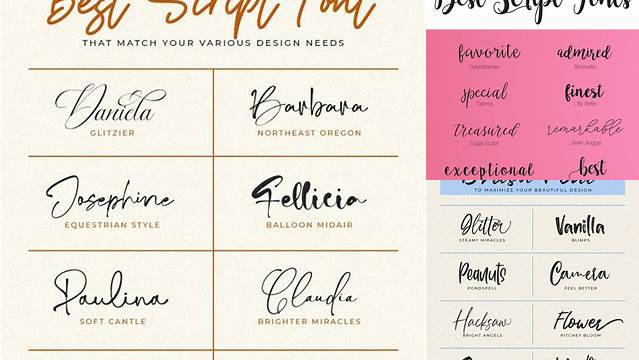
Best Script Font Generator Free: Unleash Your Typography Creativity
Looking for the best script font generator free? You've come to the right place! Script fonts, with their elegant and flowing strokes, add a touch of sophistication and personality to any design. But finding the perfect script font, or even generating your own, can sometimes feel like searching for a needle in a haystack. That's where a script font generator comes in handy. This comprehensive guide will explore the world of free script font generators, helping you discover the tools and techniques to create stunning typography for your projects. We'll dive into the best options available, providing insights into their features, ease of use, and the types of designs they're best suited for. So, whether you're a seasoned designer or just starting out, get ready to unleash your creativity and transform your text into captivating works of art. Let's get started and explore the exciting world of script font generation!
H2: Unveiling the Power of Free Script Font Generators
Alright, guys, let's talk about the unsung heroes of the design world: free script font generators! These awesome tools are like secret weapons for anyone looking to add a touch of elegance and flair to their projects. Think of them as digital calligraphy pens, allowing you to craft beautiful, handwritten-style text without the need for actual ink and paper. Whether you're working on a logo, a social media post, a wedding invitation, or even just a personal project, a script font can make all the difference. But why are these generators so powerful? Well, for starters, they offer a level of customization that's hard to find with pre-made fonts. You can often adjust the thickness of the strokes, the spacing between letters, and even the overall style to perfectly match your vision.
Moreover, they open up a world of possibilities for those who aren't necessarily skilled in calligraphy or hand lettering. You don't need to be a professional artist to create stunning typography! Many generators are incredibly user-friendly, with intuitive interfaces that make the process a breeze. Simply type in your text, experiment with different settings, and watch your words come to life. And the best part? Many of these tools are completely free to use, making them accessible to everyone. Imagine being able to create a unique and personalized script font without spending a dime! That's the power of free script font generators. They democratize design, empowering anyone to express their creativity through beautiful typography. But with so many options available, how do you choose the right one? Don't worry, we'll explore some of the best free script font generators out there, highlighting their key features and helping you find the perfect fit for your needs. Get ready to transform your text into captivating works of art!
H2: Top Free Script Font Generators: Our Curated List
Okay, folks, let's get down to the nitty-gritty and explore some of the top free script font generators that are rocking the design scene right now. We've scoured the web and hand-picked some of the best options, taking into consideration factors like ease of use, customization options, and overall quality. So, buckle up, because you're about to discover some amazing tools that will take your typography game to the next level! First up, we have FontStruct. FontStruct is a fantastic online tool that allows you to build your own fonts, including script fonts, from scratch. It's like having your own personal font foundry! While it's not strictly a generator, it gives you incredible control over every aspect of your font design. You can create unique letterforms, experiment with different styles, and really let your creativity run wild.
Next, we have Calligraphr. This is a game-changer for anyone who wants to turn their handwriting into a font. You simply print out a template, write your letters, scan the template, and upload it to Calligraphr. The generator then creates a custom font based on your handwriting! It's an amazing way to add a personal touch to your designs. For those who prefer a more automated approach, there are several online script font generators that offer a wide range of pre-designed script fonts. These generators allow you to preview your text in different fonts, adjust the size and spacing, and download the font files for use in your projects. Some popular options include Font Meme and Font Squirrel, which offer a vast library of free fonts, including many beautiful script fonts. When choosing a generator, consider factors like the variety of fonts available, the customization options, and the overall user experience.
H2: Exploring Features: What to Look for in a Generator
Alright, design enthusiasts, let's dive deeper and explore the key features you should look for in a top-notch free script font generator. Knowing what to look for will help you choose the perfect tool for your needs and ensure you get the most out of your design experience. First and foremost, consider the variety of script font styles offered. Some generators specialize in elegant and formal scripts, while others offer a wider range of styles, including casual, playful, and even edgy options. Look for a generator that aligns with your specific design needs.
Secondly, check for customization options. The ability to fine-tune your script font is crucial for achieving the desired look and feel. Look for generators that allow you to adjust the letter spacing, kerning, and even the thickness of the strokes. Some generators also offer the option to add ligatures, which are special characters that connect two or more letters, adding a touch of authenticity to your script font. Thirdly, consider the ease of use. A user-friendly interface is essential, especially if you're new to font generation. Look for generators with intuitive controls and a clear preview of your text. The ability to easily experiment with different fonts and settings will save you time and frustration. Fourthly, check the download options. Make sure the generator allows you to download your generated font in a compatible format, such as TTF or OTF, which can be used in most design software. Finally, consider any additional features. Some generators offer advanced features, such as the ability to create custom characters or add special effects. While these features may not be essential, they can be useful for adding a unique touch to your script font. By carefully considering these features, you'll be well-equipped to choose the best free script font generator for your creative endeavors.
H3: Customization Options: Fine-Tuning Your Script Fonts
Let's talk about the magic of customization! The best free script font generators offer a range of options to fine-tune your designs and make them truly your own. These features can transform a good script font into a great one, perfectly tailored to your vision. One of the most important customization options is letter spacing. This determines the space between individual letters in your text. Adjusting the letter spacing can dramatically affect the readability and overall aesthetic of your script font. For example, you might choose to tighten the spacing for a more elegant look or loosen it for a more casual feel. Kerning is another critical aspect of customization.
Kerning refers to the adjustment of space between specific pairs of letters. Some letter combinations naturally look better with more or less space between them. A good generator will allow you to fine-tune the kerning for each letter pair, ensuring your script font looks polished and professional. In addition to spacing and kerning, many generators allow you to adjust the thickness and style of the strokes. This can range from simple adjustments to the width of the strokes to more complex options like adding swashes or flourishes. These subtle details can significantly impact the personality and style of your script font. Furthermore, some generators offer the ability to add ligatures. Ligatures are special characters that combine two or more letters into a single glyph. They can create a more authentic and natural look, especially in script fonts where letters often connect. By carefully utilizing these customization options, you can transform a generic script font into a unique and personalized design that perfectly matches your creative vision.
H3: User-Friendly Interfaces: Navigating with Ease
Let's face it, guys, a clunky and confusing interface can kill your creative buzz. That's why a user-friendly interface is a must-have for any free script font generator. Look for generators that prioritize simplicity, clarity, and ease of navigation. An intuitive interface should have a clear layout, with all the essential controls and options readily accessible. The text input field should be prominent, allowing you to easily type in your text and see it displayed in the chosen script font. The customization options should be well-organized and easy to understand, with clear labels and visual previews.
Visual previews are particularly important. The ability to see your text in real-time as you adjust the settings is invaluable. It allows you to experiment with different options and instantly see the results. This makes the design process much faster and more enjoyable. Furthermore, look for generators that offer helpful tooltips and tutorials. These can guide you through the different features and options, especially if you're new to font generation. The generator should also be responsive and fast-loading. No one wants to wait for ages while the page loads or the changes are applied. A smooth and efficient interface will keep you in the creative flow. Finally, consider the overall design of the interface. A clean and modern design can enhance the user experience and make the entire process more enjoyable. By prioritizing a user-friendly interface, you can ensure that your time spent generating script fonts is efficient, productive, and, most importantly, fun!
H3: Font Compatibility: Ensuring Seamless Integration
Alright, design aficionados, let's talk about a crucial aspect of using free script font generators: font compatibility. You've created a beautiful script font, but what if it doesn't work with your favorite design software? That would be a total bummer, right? That's why it's essential to choose a generator that offers font files in compatible formats. The most common font formats are TTF (TrueType Font) and OTF (OpenType Font). These formats are widely supported by most design software, including Adobe Photoshop, Illustrator, and InDesign, as well as other popular programs like Microsoft Word and Canva.
When selecting a generator, make sure it allows you to download your generated font in either TTF or OTF format. Some generators may offer both options, which is even better. The next thing to consider is the character set support. A good script font should support a wide range of characters, including uppercase and lowercase letters, numbers, punctuation marks, and special characters. This ensures that you can use your font for a variety of purposes, from headlines to body text. Additionally, it's important to check the font's licensing. While many free script font generators offer fonts for personal and commercial use, some may have restrictions. Be sure to read the terms and conditions before using the font in your projects. You might need to purchase a commercial license if you plan to use the font for commercial purposes, such as creating logos or selling products. Finally, consider the font's overall quality.
A well-designed script font will look clean, crisp, and legible, even at different sizes. Avoid fonts that are pixelated or distorted. Choosing a generator that prioritizes font compatibility and quality will ensure that your generated script fonts integrate seamlessly into your design workflow and produce professional-looking results.
H2: Script Font Generator for Logos: Crafting Brand Identities
Hey, aspiring brand builders! Let's talk about how free script font generators can revolutionize your logo design process. Logos are the visual cornerstone of any brand, and the right script font can add a touch of elegance, personality, and memorability. Whether you're creating a logo for a small business, a personal project, or a client, a script font can make your brand stand out. The first step is to identify the desired brand personality. Is your brand playful, sophisticated, or perhaps a bit edgy?
Choose a script font that reflects this personality. For example, a formal script might be suitable for a luxury brand, while a more casual script could be perfect for a creative startup. Next, experiment with different script font styles. Free script font generators offer a variety of options, from classic calligraphy styles to modern and minimalist designs. Play around with different fonts until you find one that resonates with your brand's identity. Once you've chosen your font, use the generator's customization options to fine-tune it. Adjust the letter spacing, kerning, and stroke thickness to achieve the perfect look. Consider adding ligatures or swashes to create a more unique and memorable logo. When designing a logo, it's crucial to consider the overall composition. The script font should complement other design elements, such as icons, colors, and taglines. Make sure the logo is balanced and visually appealing. Keep in mind that a logo should be versatile. It should look good at different sizes and on various backgrounds. Test your logo on different mockups to ensure it meets these requirements.
H2: Social Media Magic: Script Fonts for Engaging Content
Alright, social media mavens, let's dive into the exciting world of using script fonts to create captivating content that grabs attention and boosts engagement. In today's crowded social media landscape, standing out from the crowd is crucial, and the right script font can be your secret weapon. Script fonts add personality and visual interest to your posts, making them more appealing to your target audience. The key is to use script fonts strategically. Use them sparingly to highlight key messages, create eye-catching headlines, or add a touch of elegance to your graphics. Avoid using script fonts for large blocks of text, as they can be difficult to read at a glance.
Instead, pair a script font with a clear and readable sans-serif font for body text. This combination creates a visually balanced and engaging design. When choosing a script font, consider the overall style of your social media feed. If you have a minimalist aesthetic, a clean and modern script font might be the perfect choice. If you want to add a touch of fun and whimsy, you can explore more playful script font options. Experiment with different script fonts and styles to find one that resonates with your brand's personality. In addition to choosing the right font, consider how you use it in your social media content. Use script fonts to create visually appealing quotes, announcements, or calls to action. You can also use them to create custom graphics, such as social media headers or profile pictures. Utilize free script font generators to create unique text-based designs that will make your content pop. When creating content for social media, it's important to optimize your designs for different platforms. Use the appropriate image sizes and formats for each platform, and make sure your script font is legible on both desktop and mobile devices.
H2: Wedding Invitations: Script Fonts for Elegant Stationery
Hey, wedding enthusiasts, let's explore how free script font generators can help you create stunning and elegant wedding invitations that will wow your guests and set the tone for your special day. Wedding invitations are more than just a piece of paper; they're a preview of the wedding itself. The right script font can convey a sense of romance, sophistication, and personal style. When designing your wedding invitations, the first step is to choose a script font that reflects your wedding theme and personality. Do you envision a classic and timeless wedding, or something more modern and trendy?
There are plenty of free script font generators that offer an array of script styles, from traditional calligraphy to contemporary designs. Select a script font that complements your wedding style and creates a cohesive look. Next, use the generator's customization options to personalize your invitations. Adjust the letter spacing, kerning, and stroke thickness to create the perfect look. Consider adding embellishments such as swashes or flourishes to add a touch of elegance. Experiment with different font sizes and layouts to ensure the text is clear and readable. In addition to the script font, consider the overall design of your invitations. Choose a color palette, paper stock, and other design elements that complement the font and wedding theme. Using complementary fonts, like a sans-serif or serif font, for the body text, can help to provide balance and readability. Consider adding design elements such as floral motifs, geometric patterns, or custom illustrations to add visual interest. When designing wedding invitations, it's also crucial to pay attention to the details. Proofread your text carefully to avoid any errors. Ensure all the essential information, such as the date, time, location, and RSVP details, is included and clearly displayed. By utilizing free script font generators and paying attention to the details, you can create wedding invitations that will leave a lasting impression on your guests.
H2: Script Fonts for Graphic Design: Enhancing Visuals
Alright, graphic design gurus, let's explore how free script font generators can elevate your designs and add a touch of sophistication and personality to your visual creations. Graphic design is all about creating visually appealing and effective communication, and the right font can make all the difference. Script fonts, with their elegant and flowing strokes, can add a touch of artistry and personality to your designs. Script fonts are excellent for adding a touch of sophistication, whether you're working on posters, flyers, or website banners. Use script fonts sparingly to create eye-catching headlines, titles, or call-out text. Avoid using them for large blocks of text, as they can be difficult to read in large quantities.
Instead, use a script font to highlight key information or add a decorative element. When choosing a script font, consider the overall style of your design. Does your design have a minimalist or modern aesthetic? In that case, choose a script font that complements this style. If your design is more playful or vintage-inspired, you can explore more whimsical script font options. Experiment with different script fonts and styles to find one that resonates with your design's purpose. Use the generator's customization options to fine-tune your script font. Adjust the letter spacing, kerning, and stroke thickness to achieve the perfect look. You can also experiment with adding ligatures or swashes to create a unique and memorable design. Consider the overall composition of your design. Ensure the script font complements other design elements, such as images, colors, and other fonts. Balance the design with clear, readable fonts for body text. By utilizing free script font generators and carefully considering the visual elements, you can create graphic designs that are both visually stunning and effective.
H2: Finding the Right Script Font: Tips and Tricks
Okay, design detectives, let's get down to the art of finding the perfect script font for your projects. With so many options available, it can feel overwhelming. But fear not, we'll equip you with some insider tips and tricks to make the process easier and more enjoyable. First, consider your project's purpose and target audience. What message do you want to convey? The right script font should align with the overall tone and style of your design. For example, a formal script font might be ideal for wedding invitations, while a more casual script font could be perfect for a social media post.
Next, explore different script font categories. Script fonts can be broadly classified into several categories, such as formal scripts, casual scripts, brush scripts, and handwritten scripts. Each category has its own unique characteristics. Formal scripts, also known as calligraphy fonts, are typically elegant and sophisticated. Casual scripts have a more relaxed and informal feel. Brush scripts mimic the look of hand-painted letters. Handwritten scripts try to emulate the look of real handwriting. Look at script fonts in each category and determine which best suits your project. Once you have a general idea of the style you want, start browsing through the font generators. Use the preview feature to see how your text looks in different fonts. Experiment with different fonts until you find one that appeals to you. Don't be afraid to step outside your comfort zone and try fonts you might not have considered. Readability is key, especially in script fonts. Make sure your chosen font is easy to read at different sizes. Avoid script fonts that are overly ornate or difficult to decipher. Look for a font that's both beautiful and practical. When choosing a script font, consider its versatility. Can it be used in a variety of applications, such as headlines, logos, and body text? A versatile font will give you more creative freedom. By using these tips and tricks, you'll find the perfect script font for any project.
H3: Matching Fonts: Pairing Script Fonts with Other Styles
Alright, font pairing pros, let's talk about the art of matching script fonts with other styles to create visually appealing and cohesive designs. Pairing fonts is more than just picking two fonts that look good together; it's about creating a harmonious balance that enhances readability and conveys your message effectively. The key to successful font pairing is to choose fonts that complement each other, not compete. When pairing a script font with another font, consider the contrast in style. A common approach is to pair a script font with a clean, readable sans-serif font or a classic serif font.
This contrast provides visual interest and helps to distinguish the script font's decorative elements from the rest of the text. When choosing a sans-serif font, look for fonts that have a simple and clean design. These fonts are ideal for body text because they're easy to read at different sizes. They can be paired with more ornate script fonts. For serif fonts, classic options like Times New Roman or Garamond can provide a timeless and elegant look. In addition to contrasting styles, consider the font's weight and size. The script font is typically used for headlines and titles. Use a heavier weight for the script font to create a visual impact and draw the reader's eye. The body text should be set in a lighter weight font, so it doesn't compete with the headline. The size of the fonts is also critical. The script font should be larger than the body text to ensure it is clearly visible. The body text should be set at a comfortable reading size. Remember that different combinations of fonts create different moods.
A clean sans-serif paired with a modern script font will create a contemporary look, while a classic serif with a traditional script will evoke a feeling of elegance. By experimenting with different pairings, you can create designs that are visually striking and convey the desired message.
H3: Understanding Script Font Styles: Formal, Casual, and More
Let's dive into the fascinating world of script font styles, guys! Understanding the different categories and characteristics of script fonts will help you choose the perfect font for your projects. Script fonts can be generally categorized into several styles, including formal scripts, casual scripts, brush scripts, and handwritten scripts. Each has its unique personality and is suitable for different purposes. Formal scripts, also known as calligraphy fonts, are the epitome of elegance and sophistication. They often feature intricate letterforms and flowing strokes, making them ideal for elegant invitations, high-end branding, and other projects that require a touch of class.
Casual scripts have a more relaxed and informal feel. They often mimic the look of handwriting or casual lettering, making them perfect for projects that require a personal touch. These scripts can be used for social media posts, greeting cards, and other designs that seek to create a friendly and approachable vibe. Brush scripts, as the name suggests, try to mimic the look of letters created with a brush. These fonts often feature thick and thin strokes and have a dynamic and expressive appearance. Brush scripts are great for logos, posters, and other designs that need to make a bold statement. Handwritten scripts try to emulate the look of real handwriting. They often feature imperfect letterforms and a natural, organic feel. Handwritten scripts are great for adding a personal touch to designs and can be used for various projects. Understanding these different script font styles is essential for choosing the right font for your project. When selecting a script font, it's crucial to consider the overall style of your design and the message you want to convey. A formal script might be perfect for a luxury brand, while a casual script could be ideal for a fun and playful project.
H2: Creating Your Own Fonts: Advanced Techniques
Alright, ambitious designers, let's explore some advanced techniques for creating your own custom fonts. If you're ready to take your typography skills to the next level, creating your own fonts is a fantastic way to express your unique style and add a personal touch to your designs. Before you dive in, it's helpful to have a basic understanding of font design principles. You can learn about the anatomy of letterforms, spacing, kerning, and the general design concepts used to create fonts. There are many great resources to learn more, including online tutorials, books, and courses. To create your own fonts, you can choose from several software options.
FontForge is a powerful, free, and open-source font editor that allows you to create and modify fonts. It offers a wide range of features and is ideal for more advanced users. Another popular option is Glyphs, a paid font editor that is known for its user-friendly interface and powerful features. It's a great choice for designers of all levels. Once you've chosen your software, the first step is to sketch out your letterforms. Sketch out your letters and numbers on paper and use them as a guide. You can also use existing fonts as inspiration. Start with the basic letterforms and then create variations. Pay attention to the spacing and kerning of each letter. Even small adjustments can make a big difference. Once you've sketched out your letterforms, it's time to digitize them. Use your font editor to trace your sketches or create the letters from scratch. Be sure to refine the shapes of your letterforms, paying attention to curves, angles, and details. Spacing and kerning are critical for creating a readable font. Experiment with different spacing and kerning to ensure your letters work well together. By creating your own fonts, you can craft designs that are truly unique and reflect your personality and style.
H3: Vector-Based Design: Tools and Techniques
Let's talk about vector-based design, the cornerstone of creating beautiful and scalable fonts. Understanding vector graphics is essential for designing your own fonts. Vector graphics are created using mathematical equations, allowing them to be scaled to any size without losing quality. This is crucial for fonts. They need to look sharp and clear at different sizes. Vector-based design relies on tools like Adobe Illustrator, Inkscape (a free, open-source alternative), and other specialized font editors. These tools let you create and manipulate shapes, curves, and lines to create your font's letterforms. A fundamental technique in vector design is the use of Bézier curves. Bézier curves are mathematical curves that define the shape of letterforms. Vector design tools offer intuitive tools for creating and manipulating these curves, allowing you to create precise and elegant letterforms.
When designing letterforms, it's essential to pay attention to detail. Refine the curves and angles to ensure your letters look balanced and visually appealing. Spacing and kerning are also essential elements. Proper spacing between the letters ensures readability. Kerning is the adjustment of space between specific pairs of letters. Another vital aspect is to maintain consistency throughout your font. Establish a consistent design style across all letterforms, including weight, stroke thickness, and details. The goal is to create a unified and harmonious font. When working with vector graphics, you can take advantage of features like layering, which allows you to organize your design elements. You can also use transformations to resize, rotate, and distort your letterforms, and create unique effects. Mastering vector-based design is vital to create stunning fonts for any project. With the correct tools and techniques, you can bring your creative visions to life.
H3: Font Editing Software: Choosing the Right Tools
Alright, font fanatics, let's talk about selecting the perfect font editing software. The right tool can make all the difference, whether you're tweaking an existing font or creating one from scratch. First, let's look at free and open-source options. FontForge is a powerful, free, and open-source font editor that offers a wide range of features. It's a great choice for users who have experience with font design and want full control over every aspect of their fonts. Inkscape, while primarily a vector graphics editor, can also be used to create and modify fonts. It's a good option for users who are familiar with vector design and want to create their letterforms from scratch. Next, consider paid options. Glyphs is a popular font editor known for its user-friendly interface and powerful features. It's a great choice for designers of all levels. Another option is FontLab Studio, a comprehensive font editor that offers advanced features and support for multiple font formats.
When choosing font editing software, consider your experience level. If you're new to font design, a user-friendly interface might be helpful. Font editing software also provides features like kerning, spacing, and support for OpenType features like ligatures and stylistic sets. Make sure the software you choose supports the features you need. Additionally, check the font format support. Does the software support the font formats you plan to use, such as TTF or OTF? Consider the learning curve. Some font editing software is more complex than others. If you're new to font design, choose software that has tutorials or documentation. When selecting font editing software, it's also essential to consider the cost. If you're on a budget, the free and open-source options are great. If you're willing to invest in software, consider paid options. Taking the time to research and select the right font editing software will ensure your font design projects are successful.
H2: Troubleshooting Common Font Issues
Hey, design dynamos, let's troubleshoot some of the most common font issues you might encounter when working with free script font generators. Running into problems is part of the creative process, but don't worry, we've got you covered! One of the most common issues is font compatibility. Your generated script font might not work correctly with the software you are using. Make sure the font format is supported by your software. Common font formats include TTF and OTF. If you are still having problems, try reinstalling the font. Another problem is character encoding. Sometimes, certain characters may not display correctly. This can be due to issues with character encoding. Most free script font generators support standard character sets, but you may need to specify character encoding in the software.
Readability issues can also arise. Script fonts, especially those with intricate designs, can be challenging to read at small sizes. Make sure your script font is legible at the desired size. Consider adjusting the font size, letter spacing, or kerning to improve readability. Font licensing is another area to be aware of. While many free script font generators offer fonts for personal and commercial use, always read the license agreement to ensure you're authorized to use the font for your intended purposes. Some fonts have restrictions, such as limitations on commercial use or modifications. Font rendering issues can also happen. Sometimes, fonts may appear pixelated or distorted, especially on certain operating systems or devices. Try using a different font format or updating your graphics drivers. If the problem persists, consider using a different font or font generator. By addressing these common font issues, you can ensure your designs look their best and function as intended.